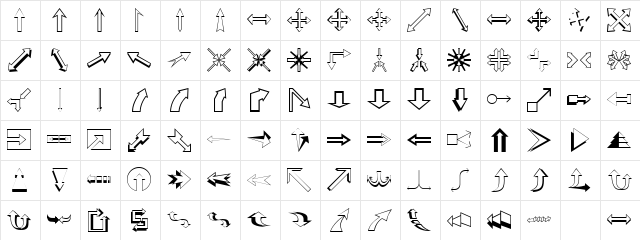
Complete Carr Arrows (outline) Regular glyph index. Displaying only characters natively supported by Carr Arrows (outline) Regular font.
Carr Arrows (outline) is built around its visual character rather than neutral utility - its distinctive forms are designed to make an impression at display sizes.
Font Pairing: Pair with a clean neutral sans-serif for body copy to let Carr Arrows (outline)'s character lead without overwhelming the composition.
Pro Tip: Use Carr Arrows (outline) exclusively at display sizes - it was designed to be seen, not read at length. Let a neutral companion handle body copy.